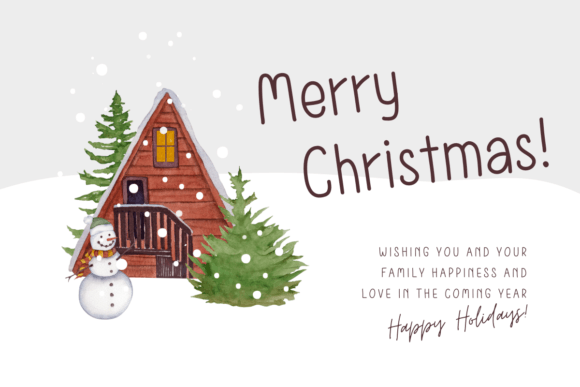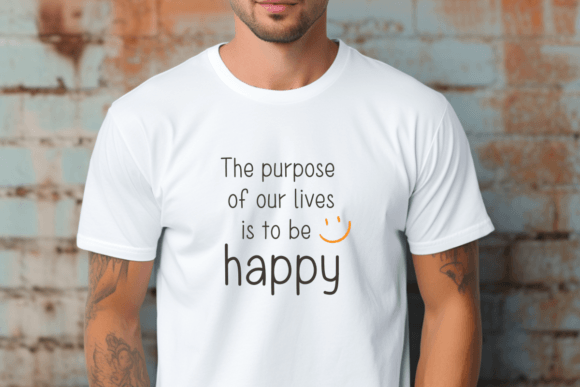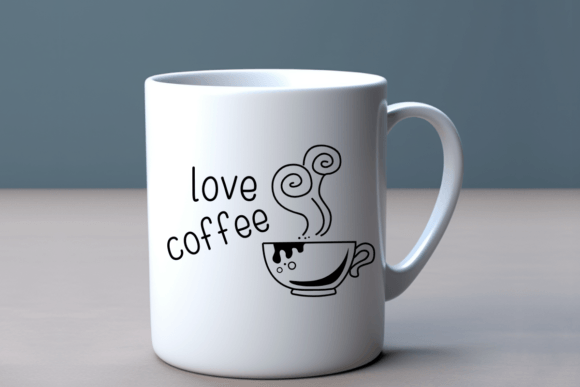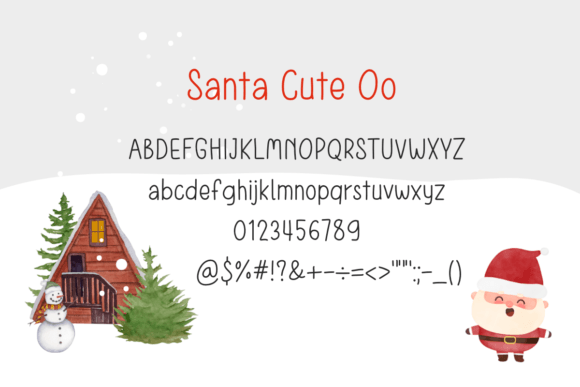
Introduction to Santa Cute Oo Font
Do you remember that magical moment when you stumbled upon the perfect font for your creative project? The one that made all the difference and elevated your design from ordinary to extraordinary? For many designers, this moment is what makes their job so thrilling. And, for those who are always on the lookout for that perfect font, we’ve got exciting news – the Santa Cute Oo Font is here to bring joy to your design world!
This delightful sans serif font is more than just a pretty face; it’s a valuable addition to any designer’s toolkit. With its cute and minimal aesthetic, the Santa Cute Oo Font is perfect for designers who want to add a touch of whimsy to their projects without sacrificing quality. And the best part? It’s available for a free download, making it an excellent design resource for creatives of all levels.
Whether you’re working on a fun project that requires a transparent background or a high-quality design that needs a unique touch, the Santa Cute Oo Font is an excellent choice. Its high quality and versatility make it a must-have for any designer looking to add some personality to their work.
Key Features of Santa Cute Oo Font
- Unique and playful design perfect for creative projects, including holiday cards, gift tags, and more
- Perfect for designers and artists working on digital projects, including web design, social media graphics, and more
- Unique characteristics include a whimsical feel and a range of emotive expressions, making it ideal for conveying a sense of joy and festivity
Honest Review: Santa Cute Oo Font
I recently stumbled upon the Santa Cute Oo Font while searching for the perfect design resource for a holiday-themed creative project. The font caught my eye with its playful and festive vibe, making it a great addition to any project.
Here are some things that work well with this font: ✨ It has a transparent background, making it easy to use on any design without worrying about a distracting background. ✨ It’s a free download, which is always a bonus. ✨ The font comes in a variety of styles, including bold and regular, giving users flexibility in their design.
Overall, I think the Santa Cute Oo Font is a great design resource for personal projects or those looking for a free, high-quality font. While it may have some limitations, its unique style and versatility make it a great addition to any creative project.
- Perfect for personal projects or holiday-themed designs
To get the most out of the Santa Cute Oo Font, use it in creative projects where a playful and festive touch is needed. Some common use cases include designing holiday cards, creating social media graphics, and developing branding materials for businesses with a fun and youthful vibe.
The Santa Cute Oo Font is perfect for designers who want to add a high-quality and unique touch to their projects. It’s also a great resource for those who want to create designs with a transparent background, making it ideal for use in presentations, websites, and other digital applications.